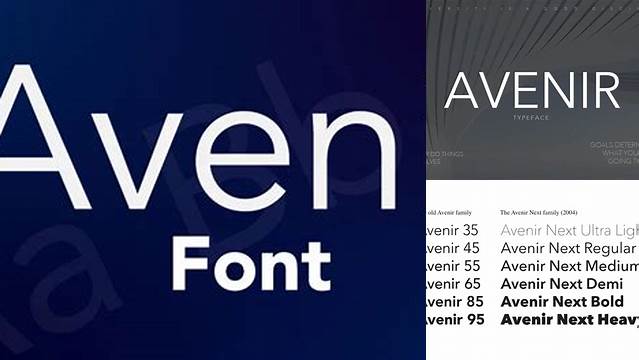
Hey guys! Ever stumbled upon a font that just clicks? For many designers, Avenir is that font. It’s clean, modern, and super versatile. Whether you're crafting a sleek website, designing a professional presentation, or just want your documents to look polished, Avenir might just be your new best friend. In this article, we'll dive deep into the world of Avenir, exploring everything from its origins and characteristics to where you can find it for free (or a steal!). We’ll also cover how to use it effectively in your projects and explore some awesome alternatives if Avenir isn’t quite the right fit. So, buckle up and let’s get font-astic!
Avenir Font Family: An Overview
Avenir is more than just a font; it's a design statement. Created by Adrian Frutiger in 1988, Avenir (French for "future") aimed to blend geometric simplicity with humanistic warmth. This resulted in a typeface that feels both modern and approachable. The Avenir font family typically includes various weights, from thin to black, and often comes with italic versions, providing a wide range of options for different design needs. It’s characterized by its clean lines, uniform strokes, and a near-perfect geometric structure, making it highly legible and visually appealing. Because of its versatility and readability, Avenir has become a favorite among designers for branding, web design, and print materials. Its impact on typography is undeniable, influencing countless other typefaces and remaining a staple in the design world. Avenir's enduring appeal lies in its ability to convey both sophistication and clarity, making it an excellent choice for projects that require a modern yet timeless aesthetic.
The History and Evolution of Avenir
The story of Avenir begins with Adrian Frutiger, a Swiss typographer renowned for his contributions to modern typeface design. Frutiger, who also created the iconic Univers font, sought to design a typeface that combined the geometric principles of Bauhaus with the warmth of humanistic typefaces. Released in 1988, Avenir was a departure from Frutiger's earlier work, offering a softer, more approachable alternative to the strict geometry of Univers. Over the years, the Avenir font family has evolved through several iterations and expansions. One notable update is Avenir Next, co-designed by Akira Kobayashi, which introduced improved kerning, additional weights, and stylistic alternates. This enhanced version broadened Avenir's versatility, making it suitable for an even wider range of applications. Avenir's evolution reflects the changing needs of designers and the advancements in typography, ensuring its continued relevance in the digital age. Today, Avenir remains a popular choice for its timeless design and exceptional readability, proving that Frutiger's vision of a typeface that embodies the future is as relevant now as it was over three decades ago.
Key Characteristics of the Avenir Font
One of the defining features of Avenir is its geometric construction. The letterforms are based on simple geometric shapes, such as circles and squares, giving the font a clean and modern appearance. However, unlike some purely geometric typefaces, Avenir incorporates subtle humanistic elements, such as slightly rounded corners and variations in stroke width, which add warmth and character. These characteristics contribute to Avenir's exceptional readability, making it suitable for both body text and display purposes. Avenir's uniform stroke weight ensures clarity even at small sizes, while its open counters (the enclosed spaces within letters like 'a' and 'e') enhance legibility. The font also boasts excellent kerning, the spacing between letters, which ensures a balanced and harmonious appearance. Another notable aspect of Avenir is its versatility; it works well in a variety of contexts, from corporate branding to editorial design. Its ability to convey both sophistication and approachability makes it a favorite among designers seeking a typeface that is both modern and timeless.
Avenir vs. Other Geometric Sans-Serif Fonts
When comparing Avenir to other geometric sans-serif fonts like Futura and Gotham, several key differences emerge. Futura, designed by Paul Renner, is characterized by its strict adherence to geometric shapes, resulting in a highly structured and somewhat rigid appearance. Gotham, on the other hand, has a more industrial and contemporary feel, with wider proportions and a slightly more condensed design. Avenir strikes a balance between these two extremes, blending geometric precision with humanistic warmth. Its letterforms are softer and more rounded than Futura's, giving it a friendlier and more approachable feel. Compared to Gotham, Avenir has a more refined and elegant appearance, making it suitable for a wider range of applications. While all three fonts share a geometric foundation, Avenir's unique blend of characteristics sets it apart, offering designers a versatile option that is both modern and timeless. Its subtle humanistic touches make it more readable and engaging than purely geometric typefaces, while its clean lines and balanced proportions ensure a professional and polished look.
Best Avenir Alternatives on Google Fonts
While the original Avenir isn't on Google Fonts, several excellent alternatives capture its essence. Montserrat is a popular choice, sharing Avenir's clean, geometric structure and excellent readability. Its various weights and styles make it versatile for both headings and body text. Another great option is Lato, known for its semi-rounded details that give it a warm and friendly feel, similar to Avenir's humanistic touches. Raleway is another strong contender, offering a slightly more elegant and refined appearance with its thin weights and geometric design. For a more modern and minimalist look, consider Open Sans, which boasts exceptional legibility and a neutral design that works well in a variety of contexts. Each of these fonts offers a unique take on the geometric sans-serif aesthetic, providing designers with a range of options to achieve a similar look and feel to Avenir without the cost of a commercial license. Experiment with different weights and styles to find the perfect fit for your project, and don't be afraid to combine them with other fonts to create a unique and visually appealing design.
Using Avenir Font in Web Design
Using the Avenir font in web design can elevate the look and feel of your website. Its clean lines and excellent readability make it a great choice for both headings and body text. When using Avenir, consider the overall tone and style of your website. Avenir's modern yet approachable aesthetic makes it suitable for a wide range of industries, from technology and finance to creative agencies and lifestyle brands. To ensure optimal readability, pay attention to font size, line height, and letter spacing. Use appropriate contrast between the text and background colors to make the text easy to read. For headings, experiment with different weights and sizes to create visual hierarchy and draw attention to important information. In body text, stick to a comfortable font size and line height to ensure a pleasant reading experience. When using Avenir with other fonts, choose complementary typefaces that share a similar aesthetic or create an interesting contrast. Popular pairings include serif fonts like Georgia or Merriweather for a classic and sophisticated look, or other sans-serif fonts like Lato or Open Sans for a modern and minimalist feel. By carefully considering these factors, you can effectively use Avenir to create a visually appealing and user-friendly website.
Resources for Learning More About Avenir Font
If you're eager to dive deeper into the world of Avenir font, here are some valuable resources to explore: 1. Typography Books: Invest in typography books that cover Avenir's history, design principles, and best practices. Look for books that discuss geometric sans-serif fonts and the work of Adrian Frutiger. 2. Online Typography Courses: Enroll in online typography courses that teach you how to use Avenir effectively in different design contexts. Platforms like Skillshare, Coursera, and Udemy offer a variety of typography courses for all skill levels. 3. Font Foundries Websites: Visit the websites of font foundries that offer Avenir, such as Linotype and Monotype. These websites often provide detailed information about the font's design, licensing options, and usage guidelines. 4. Design Blogs and Articles: Follow design blogs and read articles that discuss Avenir and its applications in branding, web design, and print design. Look for articles that provide tips for font pairing, accessibility, and best practices. 5. Online Forums and Communities: Join online forums and communities where designers discuss typography and share their experiences with Avenir. These communities can provide valuable insights, feedback, and inspiration. 6. Case Studies and Examples: Study case studies and examples of how Avenir has been used effectively in real-world projects. This can give you a better understanding of its versatility and potential applications. By utilizing these resources, you can deepen your knowledge of Avenir font and enhance your skills in typography and design.